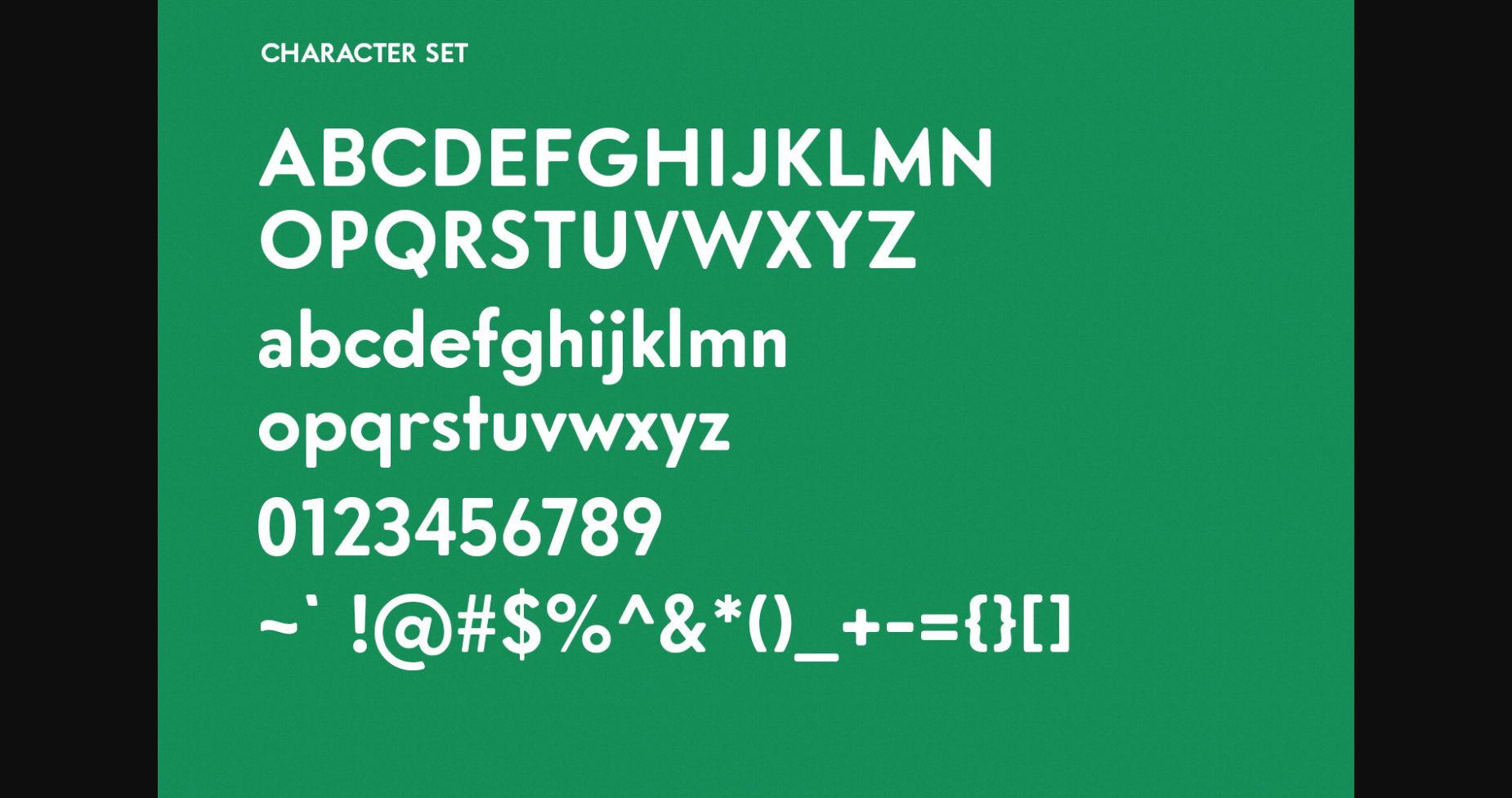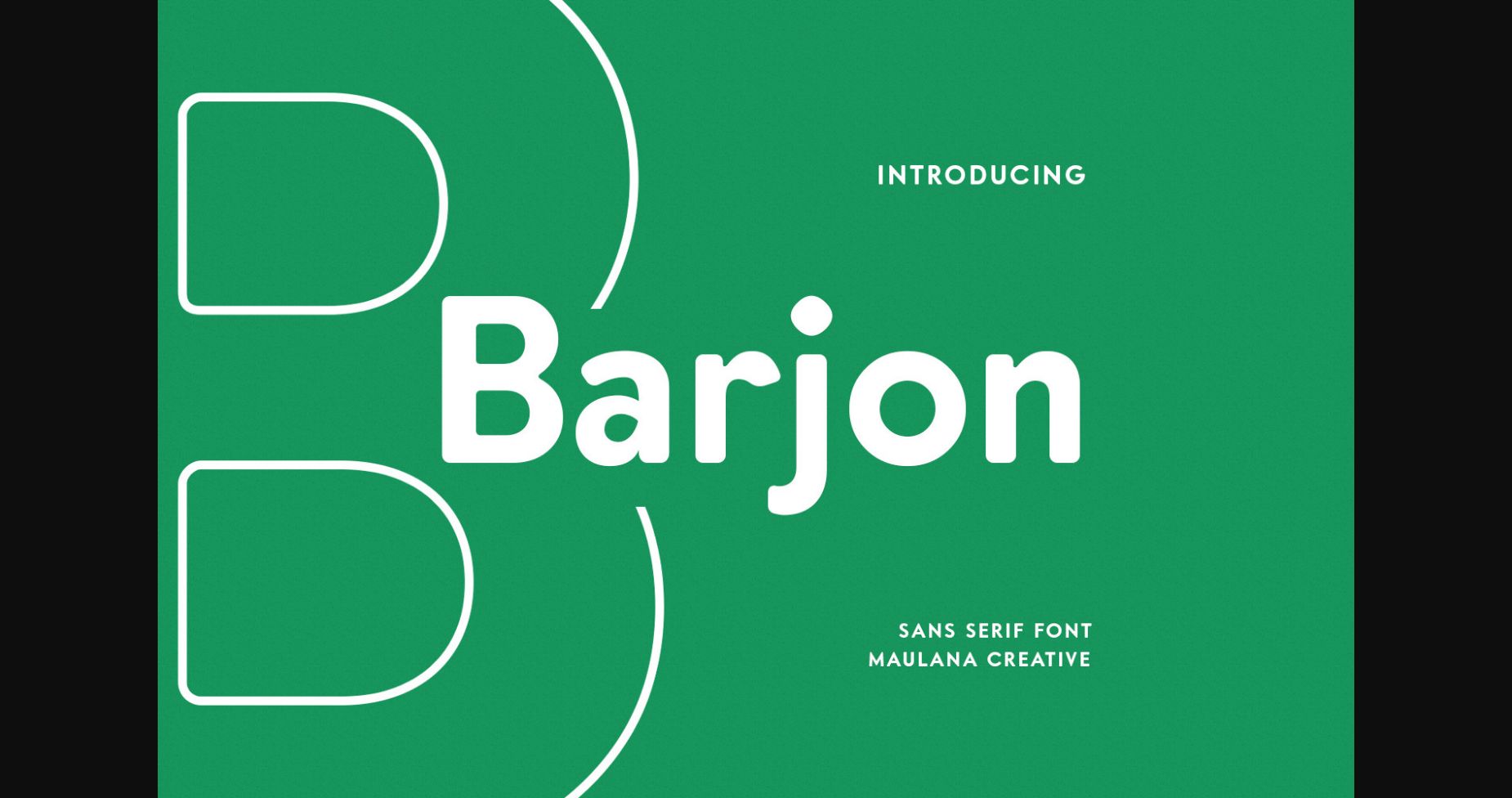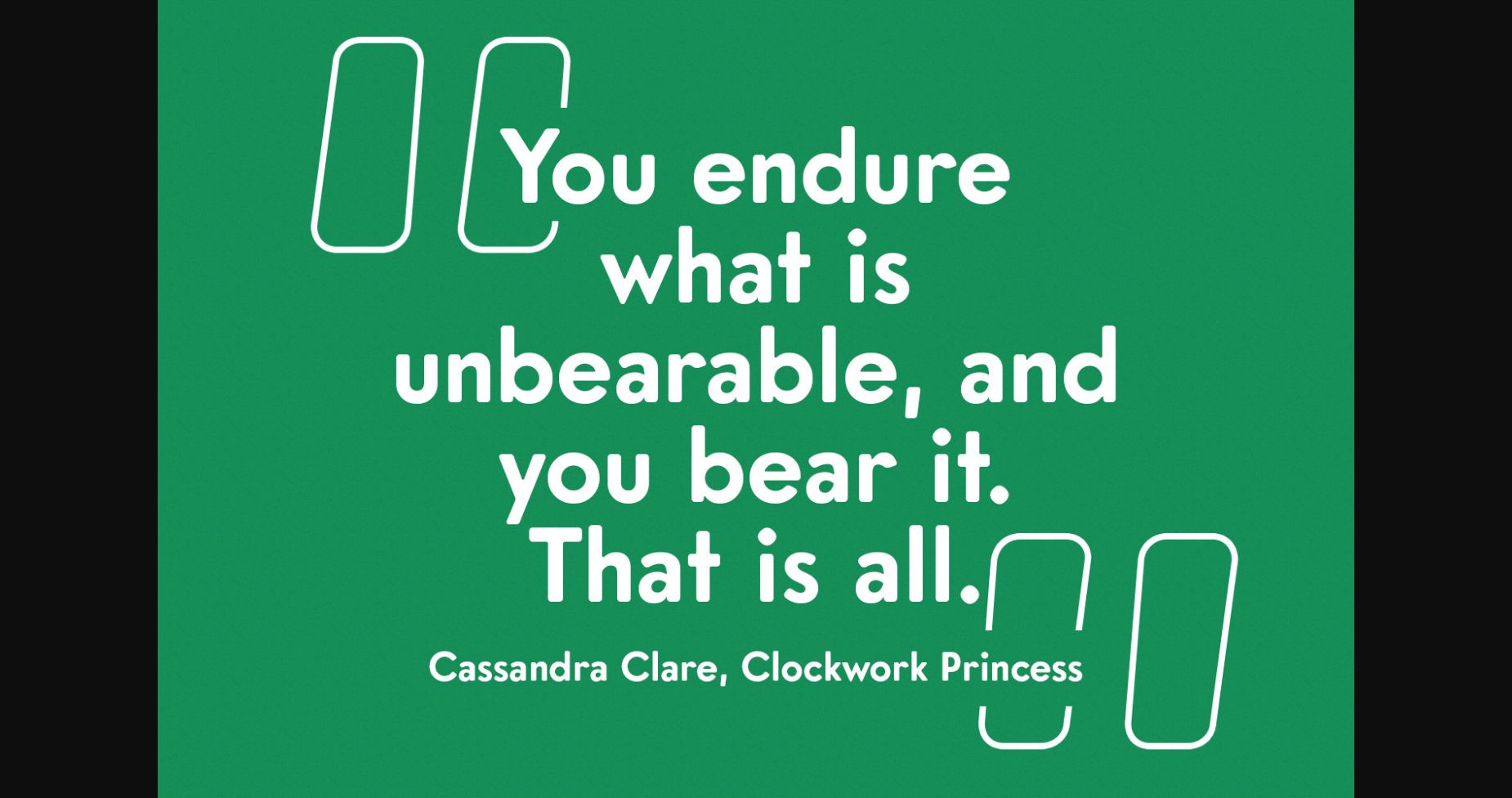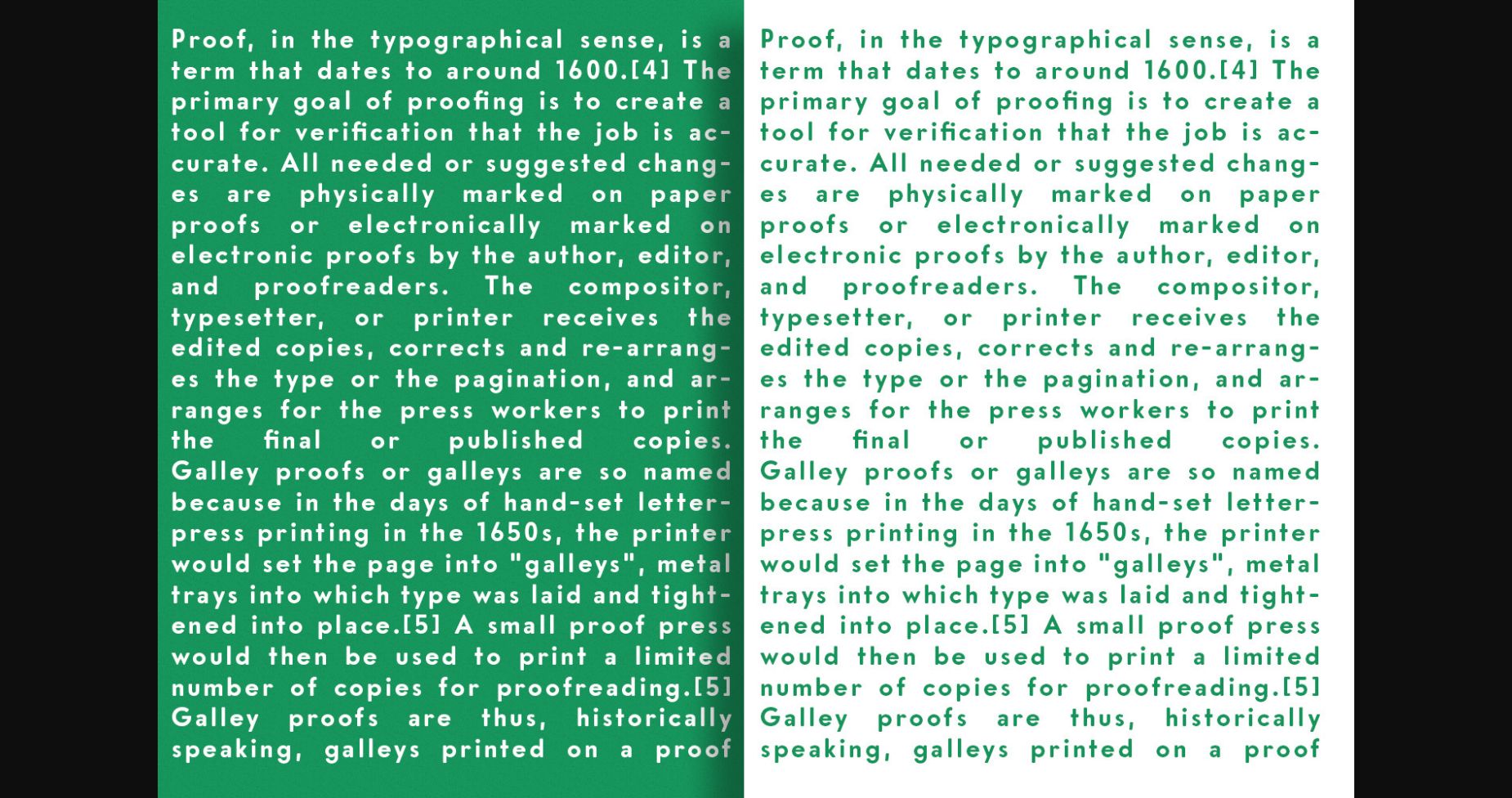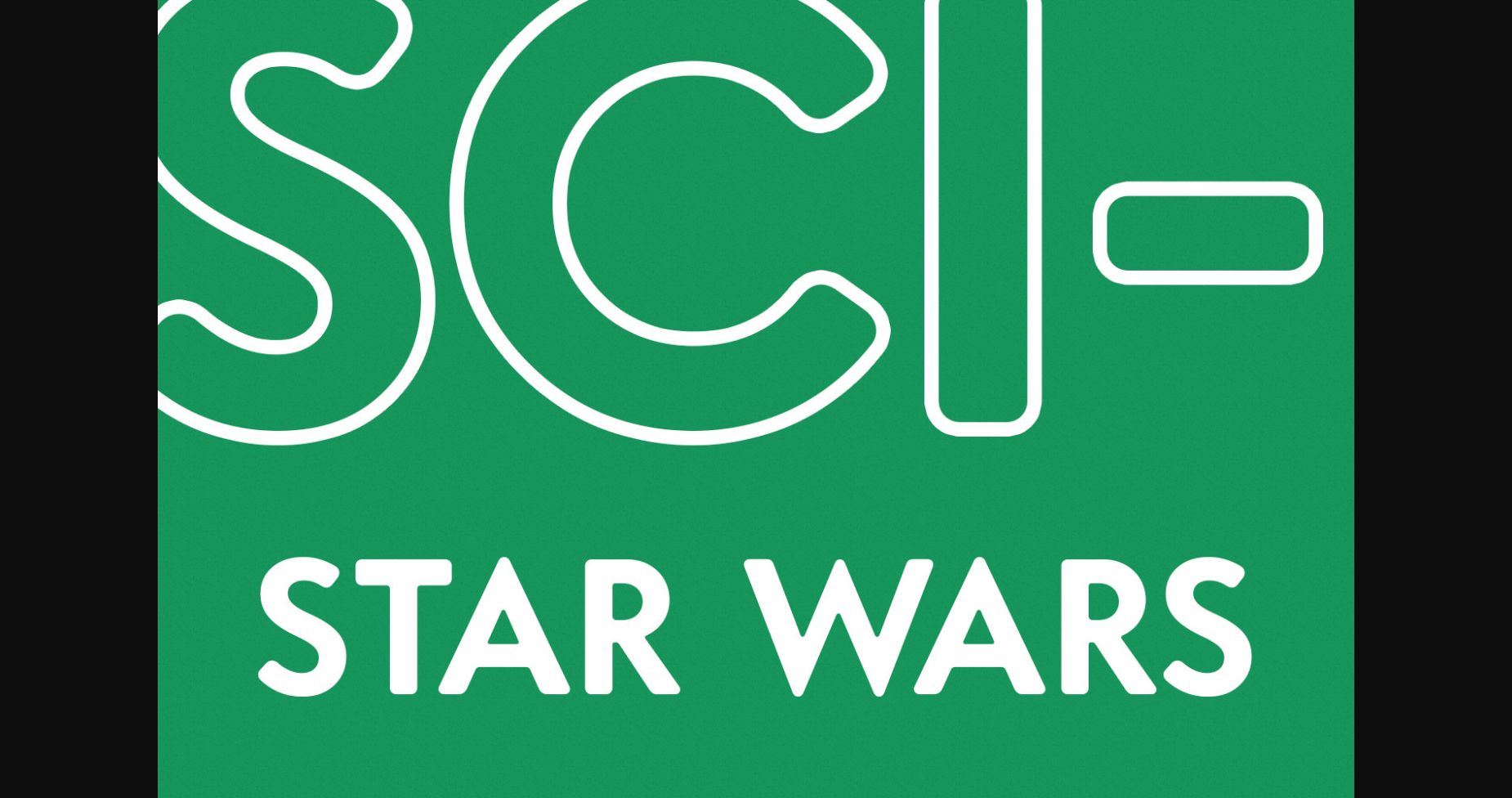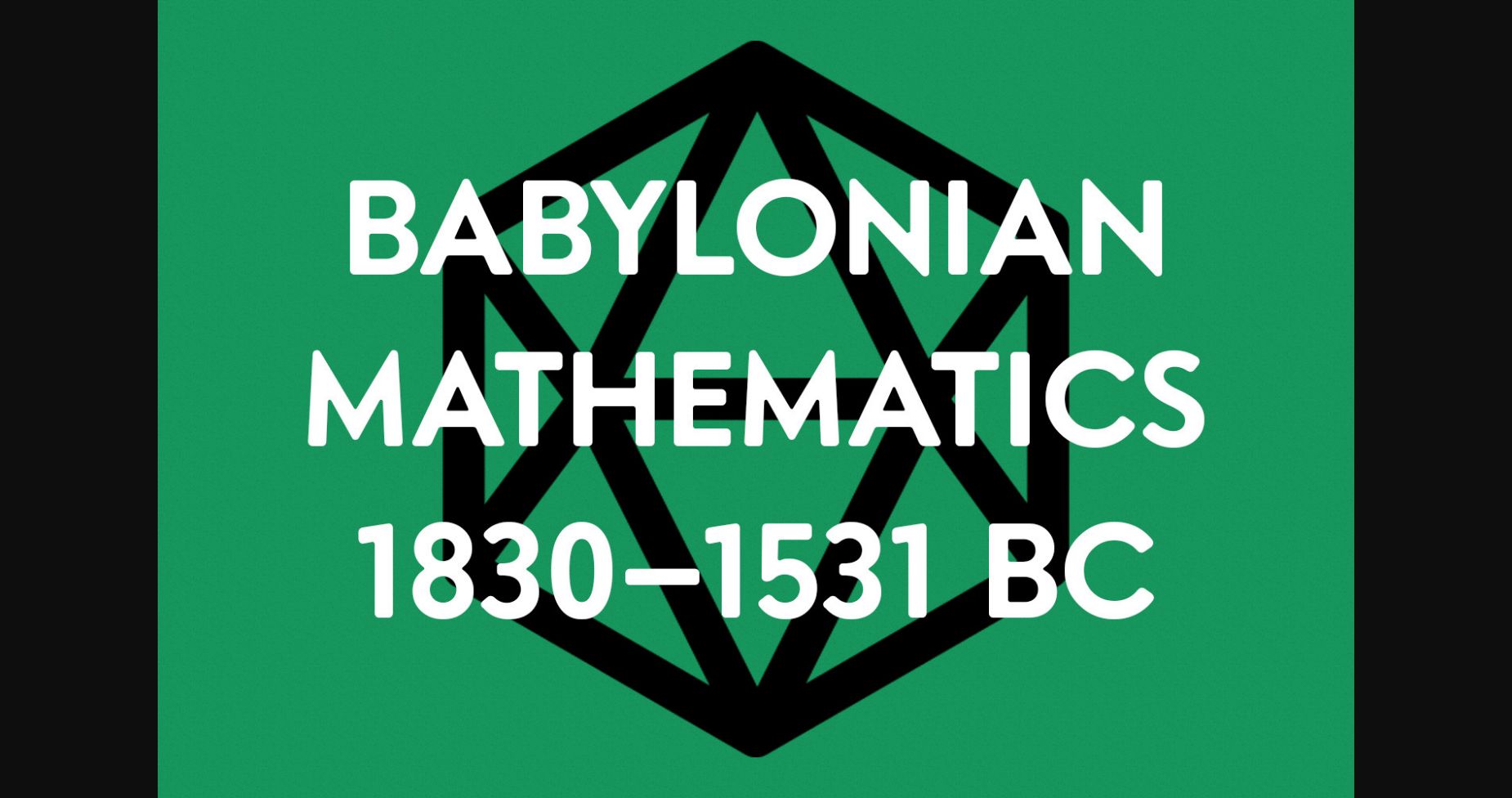
About Barjon Font
Our latest sans-serif font, “Barjon “, is the epitome of modernity and simplicity. Each letter is crafted with clean lines and minimal detailing, giving it a sleek and sophisticated look. Perfect for designs that require a touch of elegance and understated style. Elevate your projects with Barjon, the modern and minimalist sans-serif font.